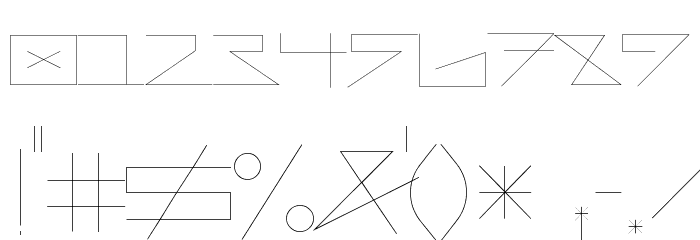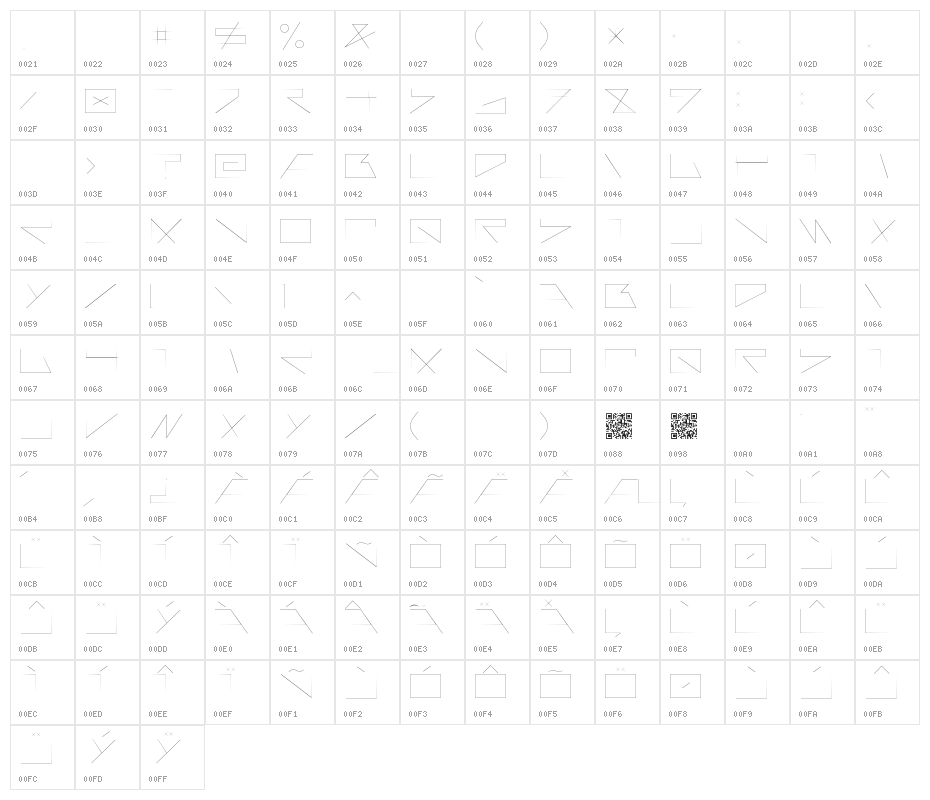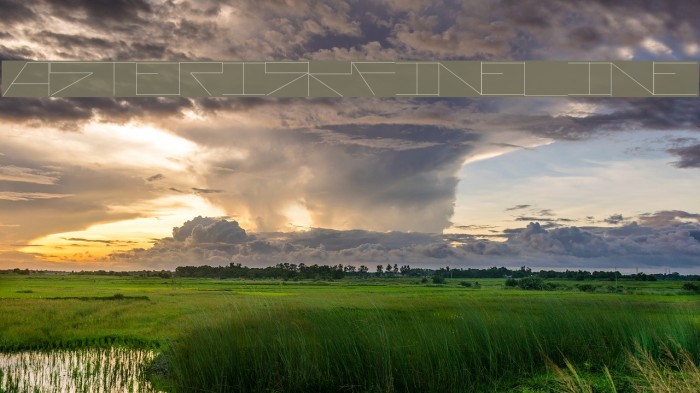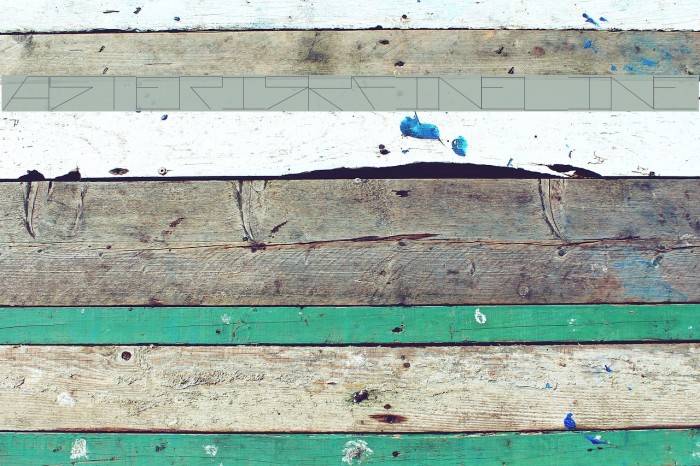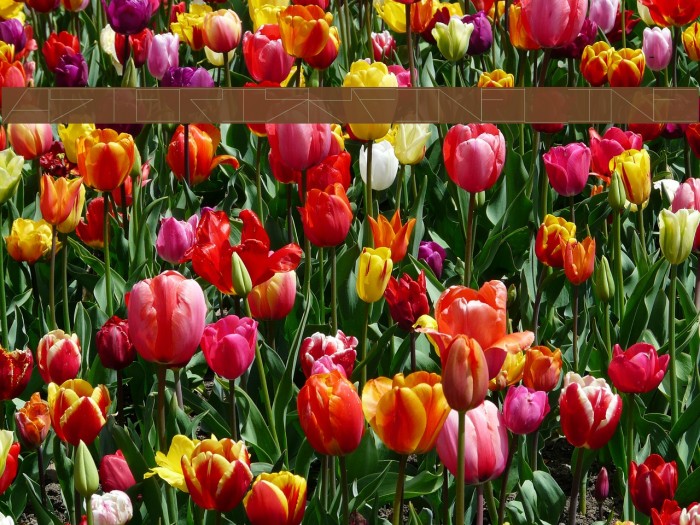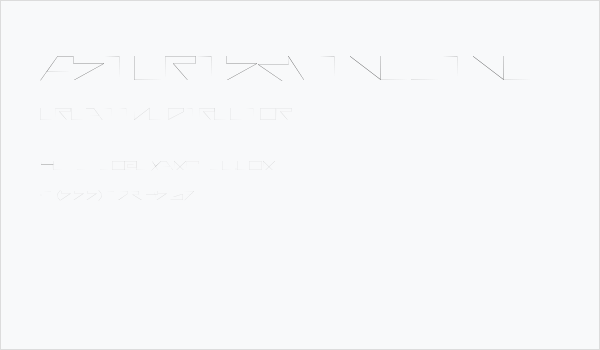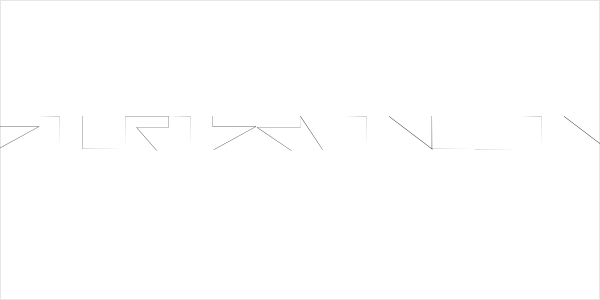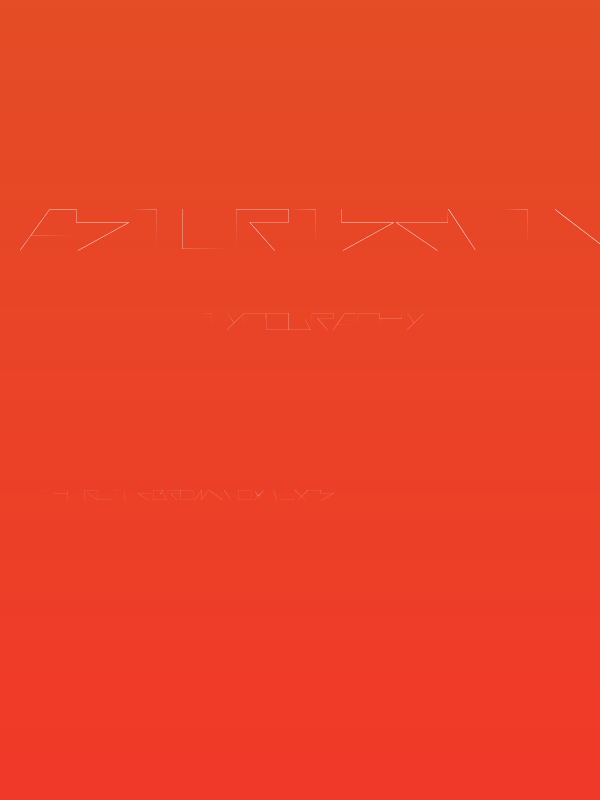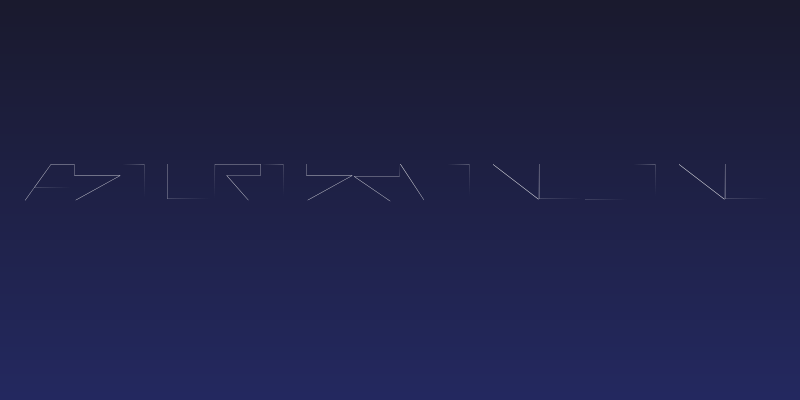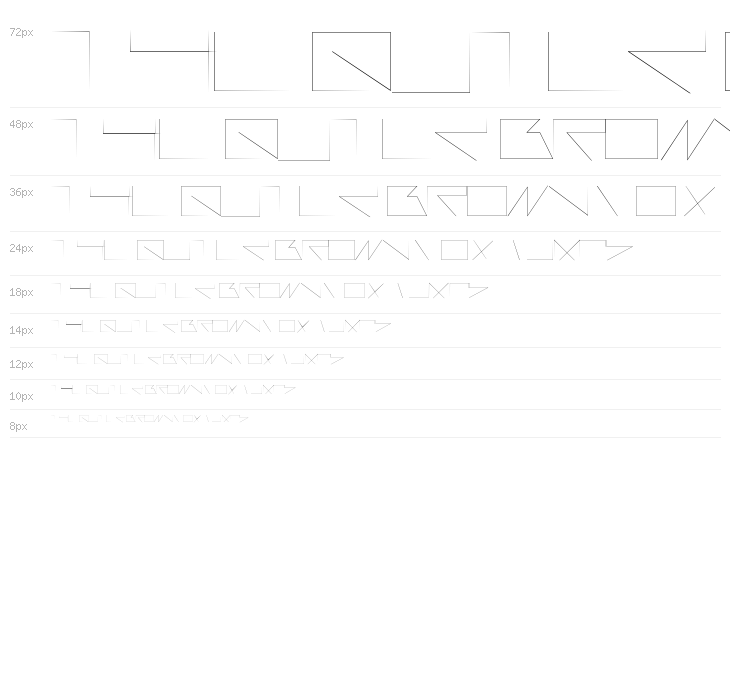
AsteriskFineLine Font
AsteriskFineLine Description
This font features a highly geometric and minimalist design, characterized by thin, fine lines that create a modern and futuristic appearance. Each character is constructed with straight lines and sharp angles, giving it a technical and precise look. The uppercase and lowercase letters maintain a consistent style, with a focus on symmetry and balance. The numerals and special characters follow the same design principles, ensuring uniformity across the font. This font's unique structure makes it stand out, ideal for projects that require a contemporary and innovative aesthetic.